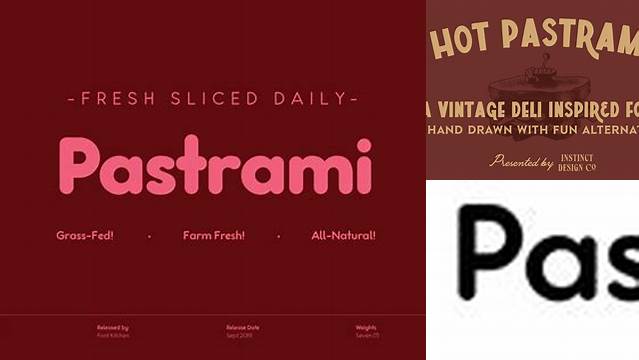
Unveiling the Pastrami Font: A Typographic Delight
Hey there, font enthusiasts and design mavens! Today, we're diving deep into the wonderfully quirky world of the Pastrami font. If you're on the hunt for a typeface that screams personality and offers a delightful retro vibe, then you've hit the jackpot, guys. The Pastrami font isn't just another collection of letters; it's an experience, a throwback to a time when typography was bold, playful, and unapologetically unique. Imagine the vibrant signage of old diners, the catchy headlines of vintage advertisements, or the playful packaging of classic candy bars – that's the kind of energy the Pastrami font brings to the table. Its distinctive character makes it stand out from the usual suspects, offering designers a fresh and engaging option for a wide range of projects. Whether you're working on branding for a quirky cafe, designing a poster for a community event, or even just sprucing up a personal blog, this font has the potential to inject a serious dose of charm and memorability. It's a versatile tool that, when used thoughtfully, can elevate your design from ordinary to extraordinary, capturing attention and leaving a lasting impression on your audience. The true beauty of the Pastrami font lies in its ability to evoke a sense of nostalgia while remaining relevant and exciting for contemporary design applications. It bridges the gap between eras, allowing you to tap into the warmth and authenticity of the past without appearing dated. So, buckle up, because we're about to explore everything you need to know about this fantastic font, including where to snag your very own free download!
Why Pastrami Font Captures the Imagination
So, what makes the Pastrami font so special, you ask? It's all about that distinctive personality. This isn't your average, run-of-the-mill sans-serif or a predictable serif. The Pastrami font boasts a unique blend of characteristics that make it instantly recognizable and incredibly appealing. Think bold strokes, slightly irregular edges that give it a hand-drawn feel, and a general sense of jovial exuberance. It often features a condensed or semi-condensed structure, which adds to its punchy, attention-grabbing quality, making it perfect for headlines, titles, and short bursts of text where impact is key. The subtle imperfections, far from being flaws, are its greatest strengths, imbuing the font with a warmth and authenticity that polished, digital fonts sometimes lack. This aesthetic harks back to mid-20th-century design, a period rich with expressive typography used in everything from movie posters to product packaging. When you use the Pastrami font, you're not just choosing a typeface; you're invoking a specific mood and a powerful sense of nostalgia. It taps into our collective memory of simpler times, of friendly storefronts and enthusiastic advertising. This emotional connection is a powerful tool for designers, as it can help create a relatable and engaging experience for the end-user. It's a font that encourages a smile, a double-take, and a sense of playful discovery. Its versatility allows it to adapt to various contexts, bringing a unique flavor whether it's applied to a modern brand seeking a retro twist or a historical-themed project.
Pastrami Font Variations: Exploring the Options
While the core Pastrami font offers a fantastic starting point, it's worth exploring if there are any Pastrami font variations available. Sometimes, talented designers create extended versions of popular free fonts, offering different weights (like light, regular, bold, black), italics, or even stylistic alternates that add even more versatility. These variations can be crucial for creating a cohesive typographic hierarchy within a design. For instance, using a bolder weight for headlines and a regular weight for body text can create a clear visual distinction and improve readability. Italic versions are perfect for emphasis or quoting, and stylistic alternates can offer unique flourishes that further personalize your design. Keep an eye out on the same platforms where you found the original Pastrami font; sometimes creators will offer premium versions with more features, or updated free versions with added glyphs or weights. If you're lucky, you might even find related font families designed in a similar style, which can be great for expanding your design palette. Exploring these options allows you to leverage the full potential of the Pastrami aesthetic, ensuring you have the right tool for every typographic challenge. Don't be afraid to dig a little deeper in your search; you might uncover hidden gems that significantly enhance your design capabilities and give your projects that extra professional polish. Remember, a well-equipped font library is a designer's best friend!
Mastering the Pastrami Font in Design Projects
Now that you've got the Pastrami font downloaded and installed, let's talk about how to truly master it in your design projects. This font thrives on attention, so think about where you want it to shine. It's an absolute champion for headlines, titles, and display text. Its inherent boldness and unique character make it perfect for grabbing the reader's eye immediately. Consider using it for the main title of a website, a striking poster headline, or the name of a product that needs to pack a punch. For logos and branding, the Pastrami font can inject a strong sense of personality, especially for businesses aiming for a vintage, playful, or artisanal feel. Think craft breweries, independent bookstores, or quirky cafes. However, use it judiciously for body text. While it's certainly possible, its strong personality can become overwhelming in large blocks of copy. If you do need to use it for longer texts, consider pairing it with a more subdued, highly readable sans-serif or serif font to provide contrast and ensure legibility. Experiment with letter spacing (kerning) and line spacing (leading) to fine-tune its appearance. Sometimes, slightly tighter kerning can enhance its punchy feel, while careful leading can improve readability. Don't be afraid to play with color, too! The vibrant retro feel of the Pastrami font pairs wonderfully with classic color palettes, think muted tones, bold primaries, or even gradients reminiscent of vintage printing techniques. Ultimately, understanding its strengths and limitations is key to unlocking its full potential and ensuring your designs not only look good but also communicate effectively.
Pastrami Font for Branding: Creating a Memorable Identity
When it comes to branding with the Pastrami font, you're essentially choosing to build an identity that is instantly recognizable, charming, and steeped in nostalgia. This font is a powerhouse for businesses that want to evoke a sense of warmth, approachability, and a touch of retro cool. Imagine a new coffee shop opening up; using the Pastrami font for its logo and signage immediately communicates a cozy, perhaps slightly old-fashioned, yet welcoming atmosphere. It suggests a place where you can relax, enjoy a classic brew, and feel a sense of community. For food businesses, especially those with a focus on traditional or comfort foods, the Pastrami font is a natural fit. It can bring to mind classic diners, home-style cooking, and a simpler time, making the brand feel authentic and trustworthy. Think about its application across various touchpoints: business cards, menus, website headers, social media profiles, and packaging. The consistency of the Pastrami font across these elements will help solidify the brand's unique personality. However, remember that branding is about more than just the logo. Consider how the font's vibe might influence the overall tone of voice and visual language of the brand. It pairs well with textures like distressed paper, kraft board, and perhaps even illustrations with a vintage aesthetic. When combined thoughtfully, the Pastrami font can help create a brand that doesn't just sell a product or service, but tells a story and builds a genuine connection with its audience.
Creative Applications: Beyond the Obvious with Pastrami Font
While the Pastrami font shines in branding and headlines, let's brainstorm some truly creative applications that go beyond the expected. Think about using it for event invitations that need a playful and memorable touch. A wedding invitation with a retro theme? A birthday party invite for a vintage-loving friend? Pastrami font nails it. For poster design, it's fantastic for music gigs, especially for genres with a vintage lean like rockabilly, swing, or classic soul. It can also work wonders for film festival posters or art exhibition announcements that aim for a unique, eye-catching aesthetic. Consider its use in packaging design for artisanal products, craft goods, or even specialty food items where you want to stand out on the shelf. Its inherent charm can make a product feel more special and handcrafted. How about editorial design? While not ideal for long body text, it can be used brilliantly for pull quotes in magazines or newsletters, adding visual interest and highlighting key information. For apparel design, think t-shirts, tote bags, or even hats with catchy slogans or brand names that benefit from a bold, retro look. Even in digital design, it can be used for website banners, special offer call-to-action buttons, or even stylized headings within blog posts to break up the monotony. The key is to understand its personality and find contexts where that personality enhances the message. Don't be afraid to experiment and push the boundaries; sometimes the most unexpected uses yield the most delightful results!
The Vintage Aesthetic: Why Pastrami Font is Perfect
There's a reason the Pastrami font feels so intrinsically linked to a vintage aesthetic. It harkens back to a golden era of graphic design, roughly from the 1940s through the 1960s, where typography was often bold, expressive, and full of character. During this period, printing techniques and the available design tools led to typefaces that had a certain handmade charm and a distinct personality. Fonts were often used to convey energy, excitement, and a direct message, seen on everything from circus posters and movie marquees to roadside diner signs and product packaging. The Pastrami font captures this spirit with its often slightly irregular shapes, strong presence, and a feel that's both robust and approachable. It avoids the sterile perfection of many modern digital fonts, instead offering a warmth and authenticity that resonates with our appreciation for the past. When you choose the Pastrami font, you're tapping into a visual language that speaks of nostalgia, craftsmanship, and a time when design felt more tangible and less digital. This makes it an invaluable asset for projects aiming to evoke a specific historical period or simply to borrow the timeless appeal of mid-century design. It’s a shortcut to creating a vibe that feels established, trustworthy, and full of character, appealing to consumers who often seek authenticity in a rapidly changing world. The font essentially tells a story of heritage and tradition, even if the brand itself is new.
Combining Pastrami Font with Other Typefaces: Best Practices
Working with a font as distinctive as Pastrami can be a fun challenge, especially when it comes to combining Pastrami font with other typefaces. The golden rule here is contrast. Because Pastrami is bold, quirky, and full of personality, you'll want to pair it with fonts that offer a different feel to create a balanced and harmonious design. A classic choice is to pair it with a clean, simple sans-serif font. Think fonts like Open Sans, Lato, or Montserrat. These provide a neutral background that allows the Pastrami font to take center stage in headlines or key elements, while ensuring the body text remains highly readable. Another excellent option is to pair it with a refined serif font. A font like Georgia, Merriweather, or even a more classic Garamond can provide an elegant counterpoint to Pastrami's robust nature. This combination can work beautifully for projects aiming for a sophisticated yet slightly playful or vintage feel. Avoid pairing Pastrami with other highly decorative or similarly bold fonts. Too much of a good thing can lead to visual clutter and make your design feel chaotic and difficult to read. The goal is to create a typographic hierarchy where each font serves a specific purpose and complements the others. Consider the context: for a casual event invitation, you might pair Pastrami with a handwritten-style font for a more eclectic look. For a restaurant menu, a simple serif might be better. Always test your combinations at the intended size and context to ensure legibility and aesthetic appeal. Remember, the supporting cast should enhance the star – in this case, the unique Pastrami font.
Accessibility and Legibility: Using Pastrami Font Wisely
Let's have a real talk, guys: while the Pastrami font is undeniably cool and full of character, we need to chat about accessibility and legibility. Because of its distinctive style, which often includes unique letterforms, slightly irregular strokes, or a condensed feel, it's not always the best choice for large blocks of body text, especially for readers who might have visual impairments or reading difficulties. The primary goal of any design should be clear communication, and that includes ensuring everyone can read your message easily. Therefore, the Pastrami font truly shines as a display font. Use it for headlines, titles, short phrases, logos, or any instance where the text is large and the message is brief and impactful. For longer texts, such as paragraphs in an article, website content, or a detailed description, it's crucial to opt for a more legible, standard typeface. A clean sans-serif or a traditional serif font with clear letterforms and ample spacing will serve your readers much better. Think about the context: if you're designing a menu for a restaurant, Pastrami is great for the restaurant's name or section titles, but the actual dish descriptions should be in a highly readable font. Similarly, on a website, use Pastrami for banners and headings, but ensure your main content is in an accessible font. By understanding where and how to use the Pastrami font effectively, you can harness its unique charm without compromising the readability and inclusivity of your design.
The Joy of Retro: How Pastrami Font Evokes Nostalgia
There's a certain magic in nostalgia, isn't there? The Pastrami font is a master key that unlocks those warm, fuzzy feelings of yesteryear. It effortlessly evokes a retro vibe that transports us back to simpler times, think diners with jukeboxes, old-school candy shops, and the exciting buzz of mid-20th-century advertising. This font’s design often mimics the styles popular during that era – bold, sometimes slightly quirky lettering that felt handcrafted and full of personality. It wasn't about sterile digital perfection; it was about making a statement, grabbing attention, and conveying a sense of fun and authenticity. When you see the Pastrami font used, it taps into our collective subconscious, reminding us of experiences, aesthetics, and even emotions associated with the past. This is incredibly powerful for branding and design. A business using this font can instantly signal a connection to tradition, quality craftsmanship, or a playful, unpretentious attitude. It creates an immediate emotional connection with the audience, fostering a sense of familiarity and trust. Whether it's for a product packaging that reminds someone of their childhood favorites or a brand identity that speaks to timeless values, the Pastrami font serves as a powerful visual cue. It’s a reminder that while times change, the appeal of classic style and genuine character remains, making it a truly timeless choice for designers looking to add warmth and personality.
Pastrami Font vs. Similar Retro Typefaces: What Sets It Apart?
In the vast universe of typefaces, especially those with a retro flair, you might wonder, "What makes the Pastrami font stand out?" While many fonts aim for a vintage feel, Pastrami often distinguishes itself through its specific blend of characteristics. Many retro fonts might lean heavily into script styles reminiscent of the 1950s, or adopt a very geometric, art-deco structure. The Pastrami font, however, often strikes a balance. It typically possesses a boldness and a slightly condensed nature, making it incredibly impactful for headlines, reminiscent of early advertising or industrial signage. Its charm often lies in its subtle imperfections – perhaps slightly uneven strokes or a unique quirk in certain letterforms – that give it a more approachable, almost hand-lettered quality, differentiating it from more polished, digitally-perfected retro fonts. Some similar fonts might be very literal interpretations of a specific era, whereas Pastrami can feel more like a generalized, robust expression of vintage energy. It might share DNA with fonts like Lobster or Bebas Neue in terms of boldness, but often has a more distinct, less 'common' character. When considering other slab serifs or bold sans-serifs from the mid-century, Pastrami often brings a unique, perhaps slightly more playful or even food-related (given the name!) connotation. Ultimately, its unique combination of boldness, approachable character, and a distinct retro vibe without being overly tied to one specific micro-era is what gives the Pastrami font its special place in a designer's toolkit.
Commercial Use of Pastrami Font: Understanding the License
This is a super important point, guys: commercial use of the Pastrami font. Just because a font is available for a free download doesn't automatically mean you can use it in any way you please, especially for making money. The license attached to the font is your rulebook. Many free fonts, including versions of Pastrami you might find, are released under licenses like the SIL Open Font License (OFL) or specific Creative Commons licenses. These often allow for commercial use, meaning you can use them in logos, marketing materials, product packaging, and anything else that's part of your business. However, there might be restrictions. Some licenses might prohibit modifying the font, redistributing it, or using it in specific types of products (like embedding it in software for resale). Always, always look for the license file (often a TXT file) that comes with the font download. Read it carefully. If you find the Pastrami font on a reputable platform like Google Fonts, their licensing terms are usually very clear and permissive. If you download it from a smaller, independent site, be extra vigilant. If a license is unclear or seems overly restrictive for your commercial needs, it's best to err on the side of caution or seek out a font with a more explicit commercial-use license. Protecting yourself legally is just as important as making your design look good!
Pastrami Font in Web Design: Adding Retro Flair Online
Bringing the Pastrami font into web design can be a fantastic way to inject some personality and a distinct retro flair into your online presence. Imagine a website that immediately feels warm, inviting, and a little bit nostalgic – that's the power of using this font strategically. It's particularly effective for websites aiming for a vintage aesthetic, perhaps for a craft business, a retro-themed blog, a local eatery, or even a personal portfolio wanting to stand out. Use Pastrami for your main website headings, your logo, or call-to-action buttons to grab attention. Its bold nature ensures that key information pops, making navigation and user engagement more intuitive. For instance, a call-to-action like "Shop Now" or "Learn More" rendered in Pastrami font can feel more engaging and less corporate. However, as we've discussed, legibility is key on the web. Avoid using Pastrami for large blocks of paragraph text. Readers often scan web content, and a highly decorative font can hinder readability and increase bounce rates. Instead, pair it with a clean, web-safe sans-serif or serif font for body copy. This creates a beautiful contrast and ensures your content is accessible. Consider using custom CSS to implement the font, ensuring it loads efficiently. Many web font services offer Pastrami or similar-inspired fonts. By thoughtfully integrating the Pastrami font, you can create a website that is not only visually appealing but also tells a compelling story and resonates with a specific audience.
Designing Logos with Pastrami Font: Uniqueness Guaranteed
When the goal is to create a logo with the Pastrami font, you're setting yourself up for a design that's inherently unique and memorable. This font’s distinctive character is its biggest asset in the logo design world. It inherently avoids the generic, offering a ready-made personality that can significantly shape a brand's identity. Think about brands that want to project a friendly, approachable, perhaps slightly quirky or artisanal image. The Pastrami font is perfect for this. It's especially well-suited for businesses in the food industry (hello, pastrami sandwich!), craft breweries, independent shops, or businesses targeting a younger demographic looking for something with a bit of edge and retro charm. Experiment with different applications. You might use the full font name, or just a few key letters, perhaps with some custom modifications. Sometimes, playing with the letter spacing or adding subtle graphic elements around the text can further enhance its uniqueness. Consider how the logo will appear at different sizes – from a tiny favicon to a large sign. The boldness of Pastrami generally holds up well, but always test its scalability. Remember, a logo is often the first impression a customer has of a brand. Using a font like Pastrami ensures that this first impression is filled with personality, character, and a memorable retro vibe that sets the brand apart from the competition.
Pastrami Font in Print Materials: Flyers, Posters, and More
The tactile nature of print materials often calls for typefaces that have substance and presence, and the Pastrami font delivers this in spades. When designing flyers, posters, brochures, or even business cards, Pastrami can be your secret weapon for creating designs that don't just sit there – they sing. For flyers and posters, its boldness makes it ideal for grabbing attention from a distance. Use it for the main event title, a compelling tagline, or key details like dates and locations. Its retro charm can perfectly complement the theme for concerts, community events, vintage markets, or even theatrical productions. Think about the visual hierarchy: use Pastrami for the most important information to draw the eye, and then perhaps a simpler, complementary font for smaller details like contact information or schedules to ensure readability. For business cards, a touch of Pastrami on the company name or a tagline can make it instantly more memorable than a generic sans-serif. Brochures can benefit from Pastrami used in section headings or for highlighting key statistics or testimonials, breaking up the text and adding visual interest. When working with print, consider the paper stock and printing method too. Pastrami’s strong lines often reproduce well, but a thicker, textured paper might further enhance its vintage feel. Always ensure a minimum font size for legibility, especially if using it for smaller print elements.